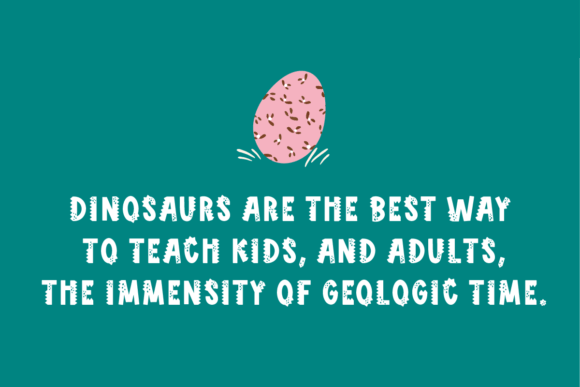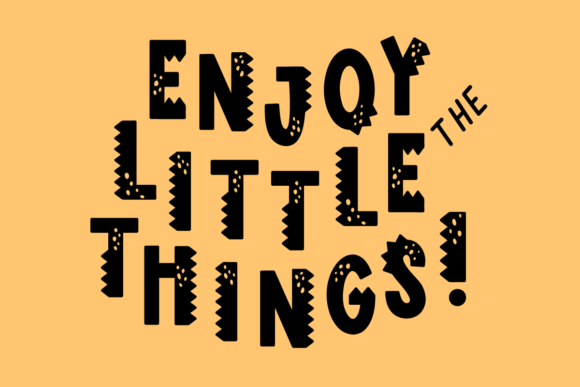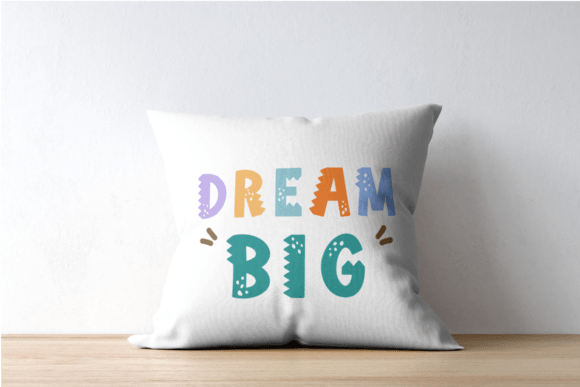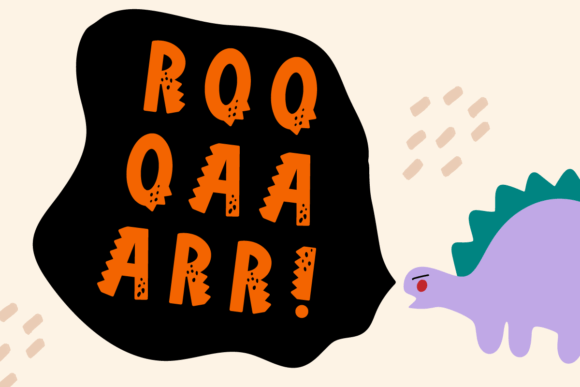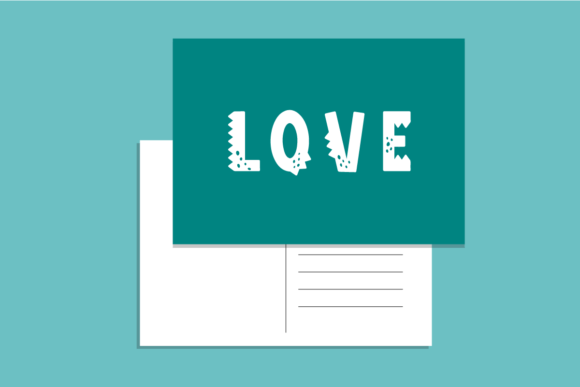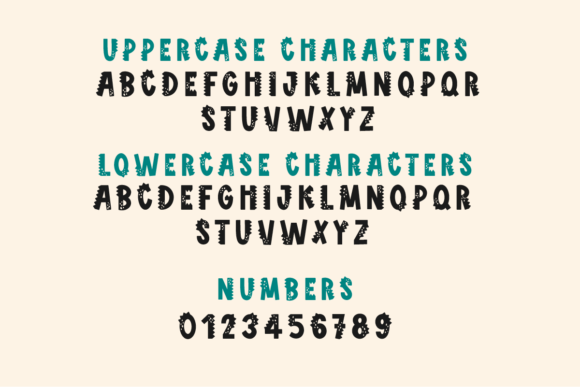
The Ultimate Dinosaur Kingdom Font Guide: Unleash Your Creativity!
Hey there, fellow designers and crafty enthusiasts! Have you ever been in the middle of a project, and suddenly, you just can’t seem to find the right font? I know I have! It was a typical Tuesday afternoon when I received a call from a client asking for a fun, playful design for a kid’s birthday party invitation. I was brainstorming ideas, but something was missing – the perfect font. That’s when I stumbled upon the Dinosaur Kingdom font, and it completely transformed my design game!
- ✨ The Dinosaur Kingdom font is ridiculously playful and fun, making it perfect for projects that need a whimsical touch.
- ✅ It’s incredibly versatile and can be used for a wide range of projects, from shirts and mugs to posters and logos.
- 🎉 The font comes with a variety of OpenType features, glyphs, and stylistic alternates, giving you plenty of creative options.
While the Dinosaur Kingdom font is amazing, there are a few things to keep in mind:
- 🤔 Some of the characters might be a bit too playful for more formal projects, so use your discretion.
- ⚠️ The font might not work well in very small sizes, so be sure to test it out before finalizing your design.
The Dinosaur Kingdom font was created with the intention of bringing a playful, whimsical touch to designs. The designer, inspired by the magical world of dinosaurs, aimed to create a font that would transport users to a land of imagination and creativity. With its unique blend of bold and delicate features, the Dinosaur Kingdom font is sure to delight designers and crafty enthusiasts alike.
Q: What type of projects is the Dinosaur Kingdom font best suited for?
A: The Dinosaur Kingdom font is perfect for projects that require a playful, whimsical touch, such as kid’s party invitations, stickers, posters, and more.